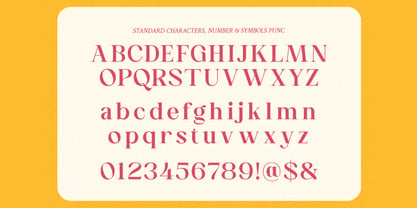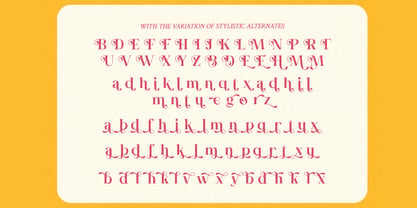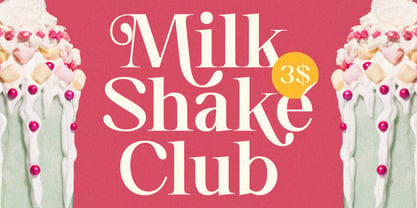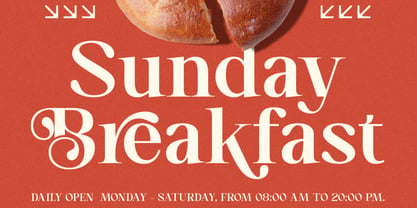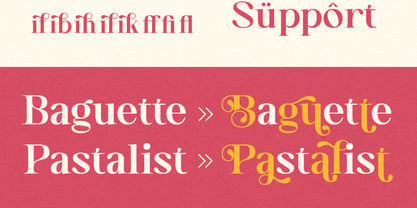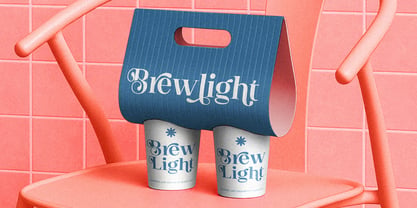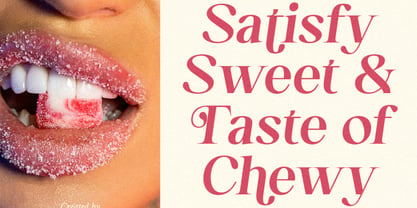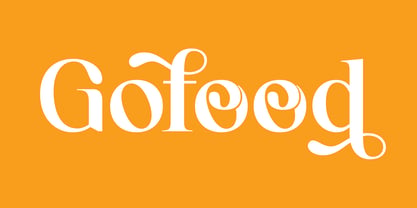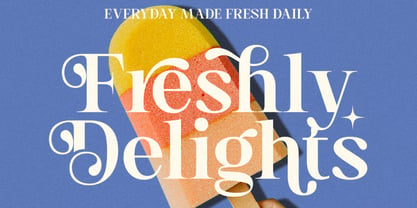
Gofood
Gofood is a modern swash serif font that blends elegant typography with a fun, contemporary personality. Designed with smooth curves, expressive swashes, and stylish letterforms, Gofood delivers a perfect balance between sophistication and playful energy. It is ideal for designers who want to create visuals that feel both polished and approachable.
With its decorative details and refined structure, Gofood stands out beautifully in branding projects where personality matters. Whether used for café identities, food packaging, logo design, editorial headlines, or promotional posters, this font adds a fresh and stylish character to every composition.
From modern restaurant branding to creative lifestyle designs, Gofood ensures your typography feels engaging, memorable, and visually distinctive.
✿ Key Features:
• Modern Swash Serif Design: Elegant serif structure with expressive decorative swashes.
• Smooth Curves & Friendly Style: A perfect mix of sophistication and playful energy.
• Regular & Italic Styles: Flexible typography for dynamic design use.
• Uppercase & Lowercase Letters: Complete character set for professional applications.
• Swashes, Alternates & Ligatures: Advanced OpenType features for creative typography.
• Multilingual Support: Includes accented characters for global usability.
• High-Quality Font Design: Suitable for both print and digital platforms.
• Versatile Display Typeface: Designed for strong visual impact and readability.
✿ Perfect For:
• Food Branding & Packaging: Ideal for restaurants, cafés, bakeries, and food products.
• Logo Design: Create memorable and expressive brand identities.
• Editorial Headlines & Covers: Add personality and elegance to magazine layouts.
• Poster & Advertising Design: Perfect for eye-catching promotional materials.
• Social Media Graphics: Design engaging and stylish digital content.
• Product Labels & Marketing: Enhance packaging with a friendly yet premium feel.
• Creative Lifestyle Branding: Suitable for modern and playful brand identities.
Bring flavor to your designs with Gofood—a modern swash serif font perfect for food branding, café logos, packaging, posters, editorial covers, and creative visual identities that stand out with style and personality.